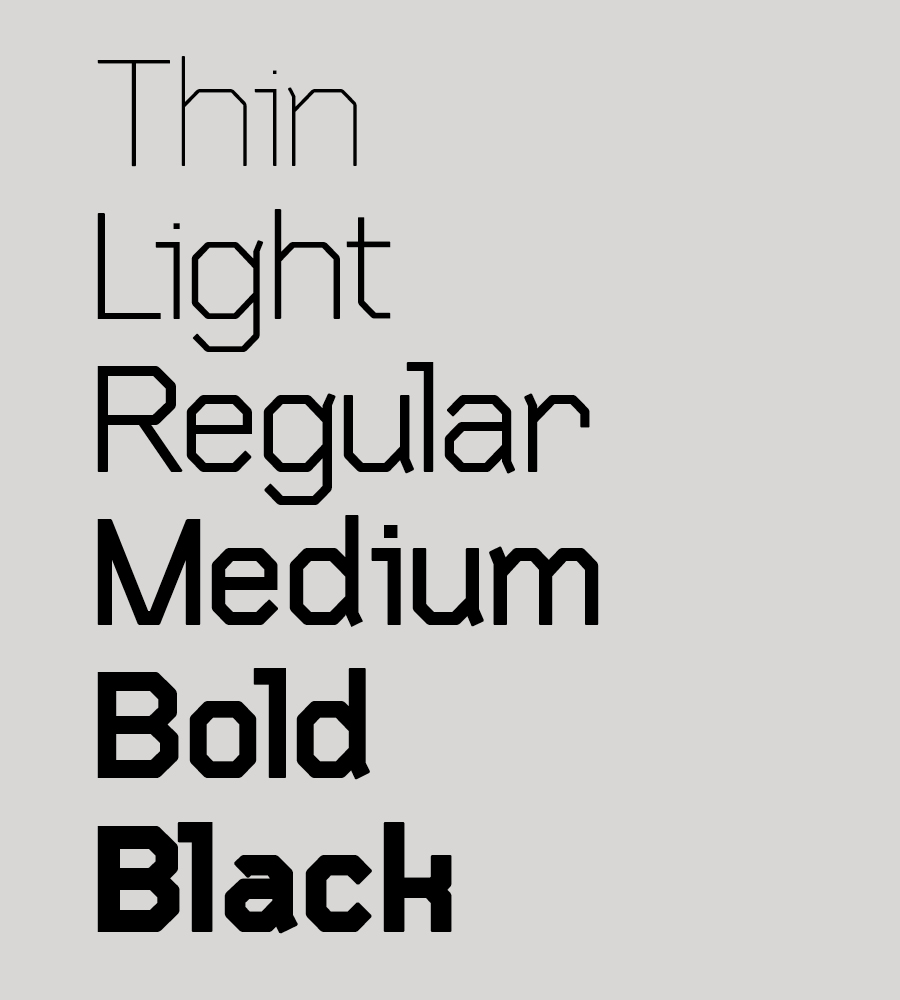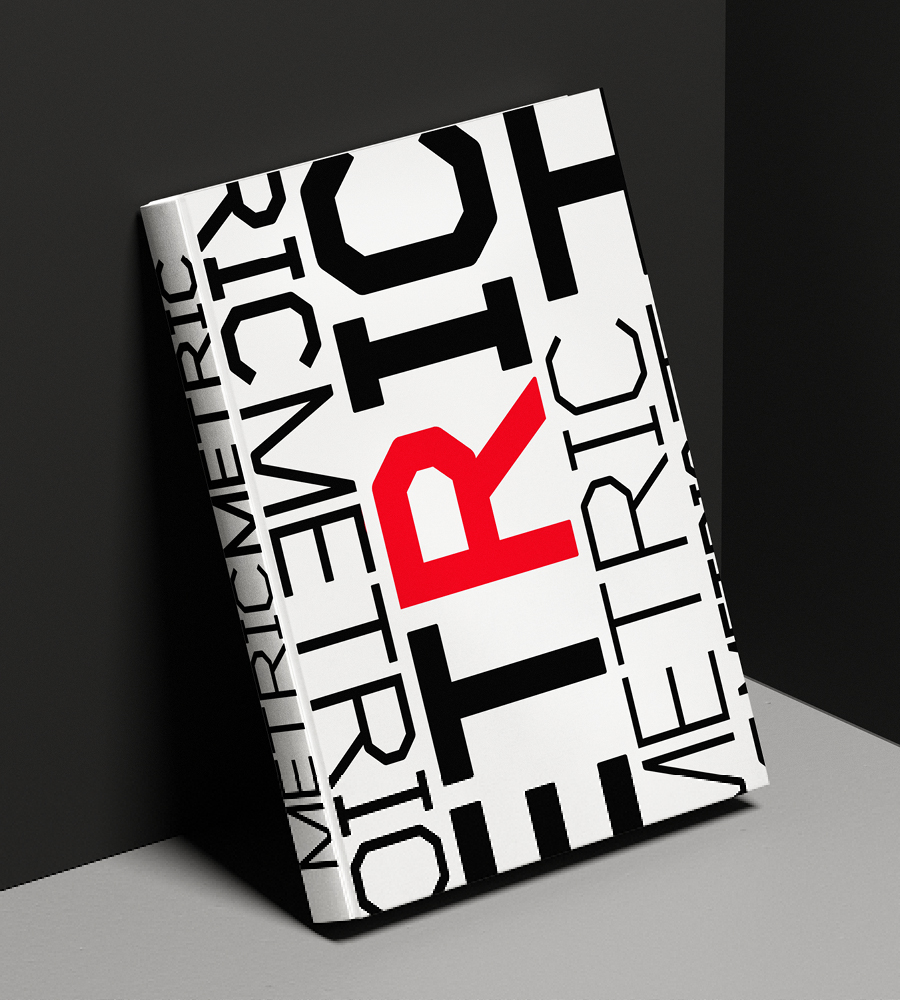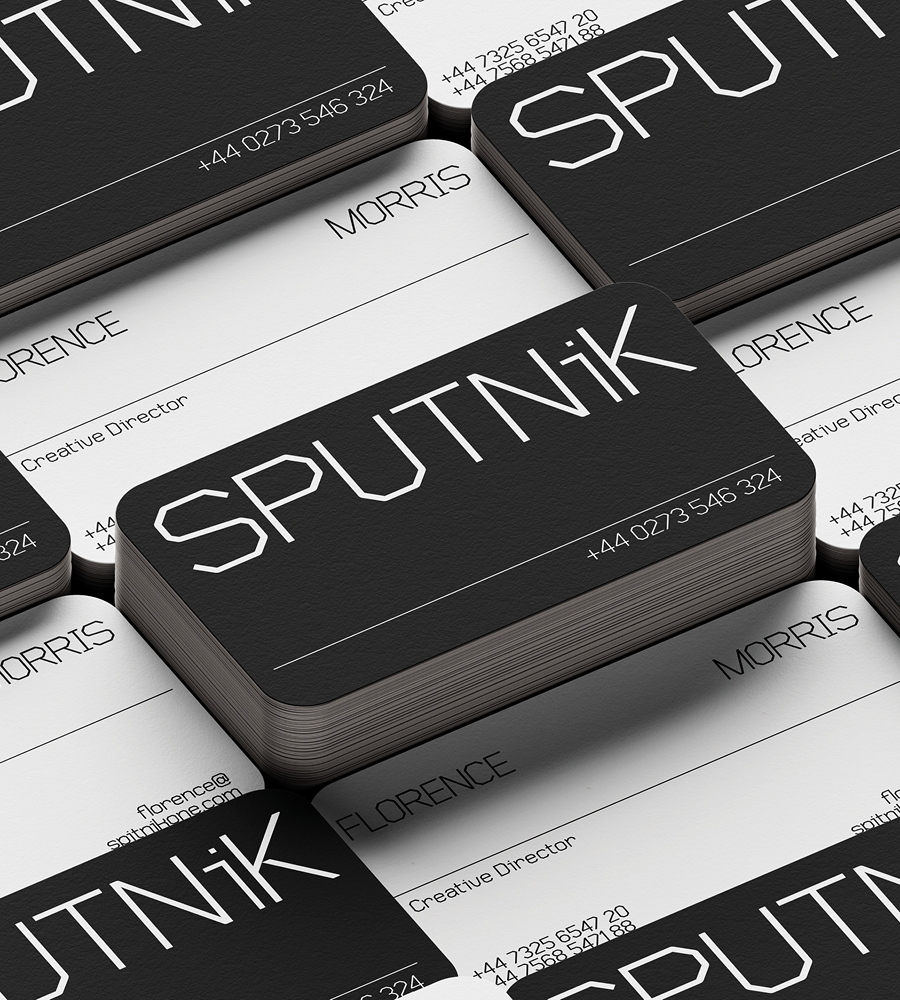
Hex Metric V.01 is a stylistic mechanical font developed within a set grid that creates harmony through architectural forms, for use at both text and display sizes. Perfectly suited for headlines, large-format prints, brand identities, social media, advertising, editorial design, posters, magazines, logos, headings, body copy, digital and more.